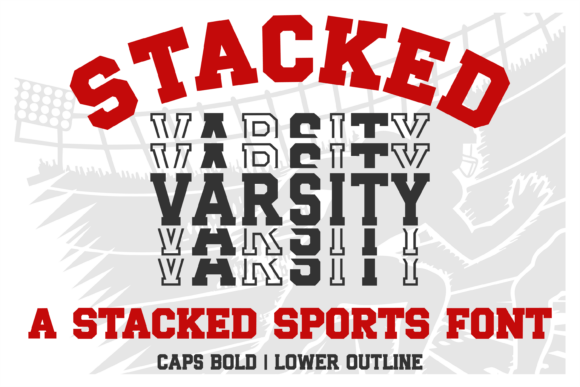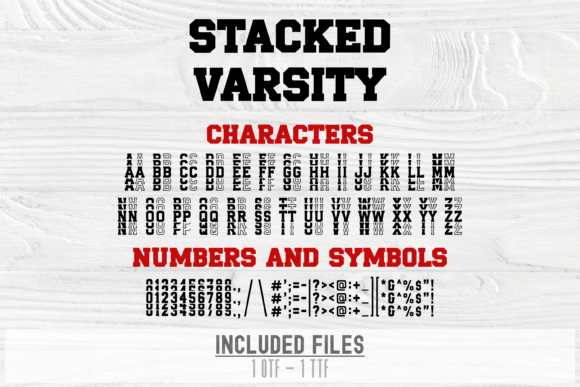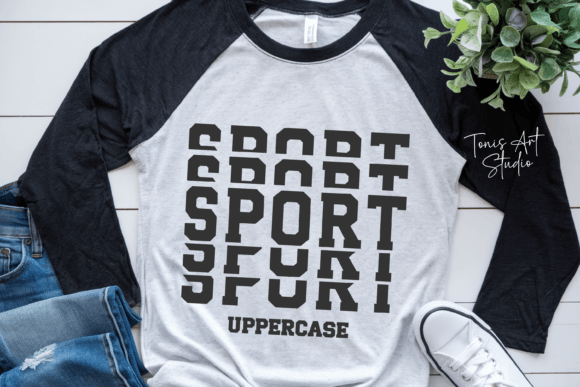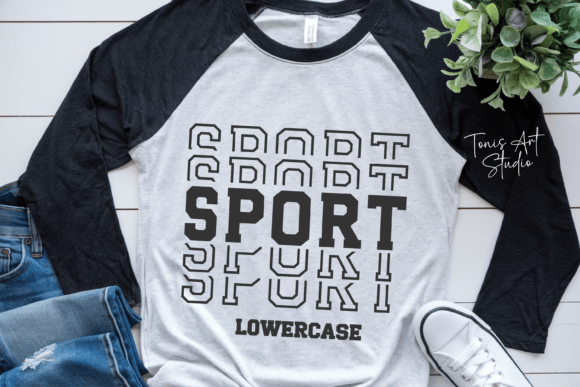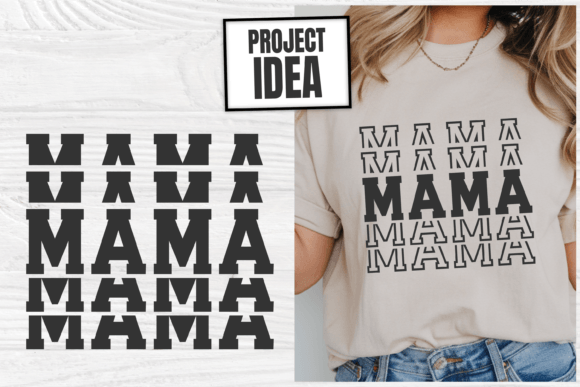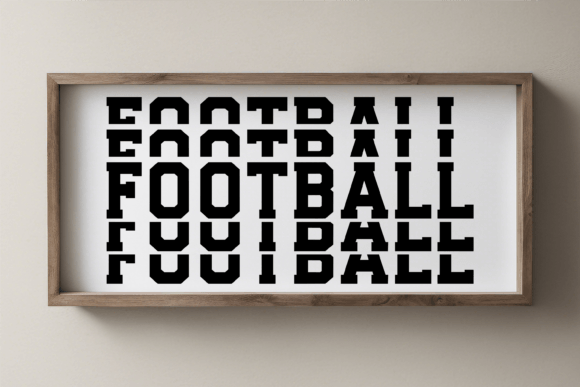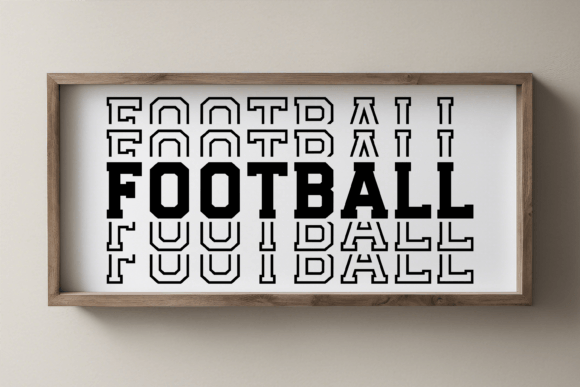
Stacked Varsity Font
The Stacked Varsity Font is a bold and dynamic typeface perfect for sports jerseys, team branding, and athletic apparel. Featuring bold uppercase letters and outlined lowercase, this font creates a layered varsity effect, ideal for football, basketball, baseball, and other sports designs. This versatile sports font works seamlessly with Cricut, Silhouette, Canva, Procreate, and Sublimation projects. Whether you’re creating jerseys, posters, banners, or custom team gear, the Stacked Varsity Font ensures your designs stand out with a powerful, athletic style.